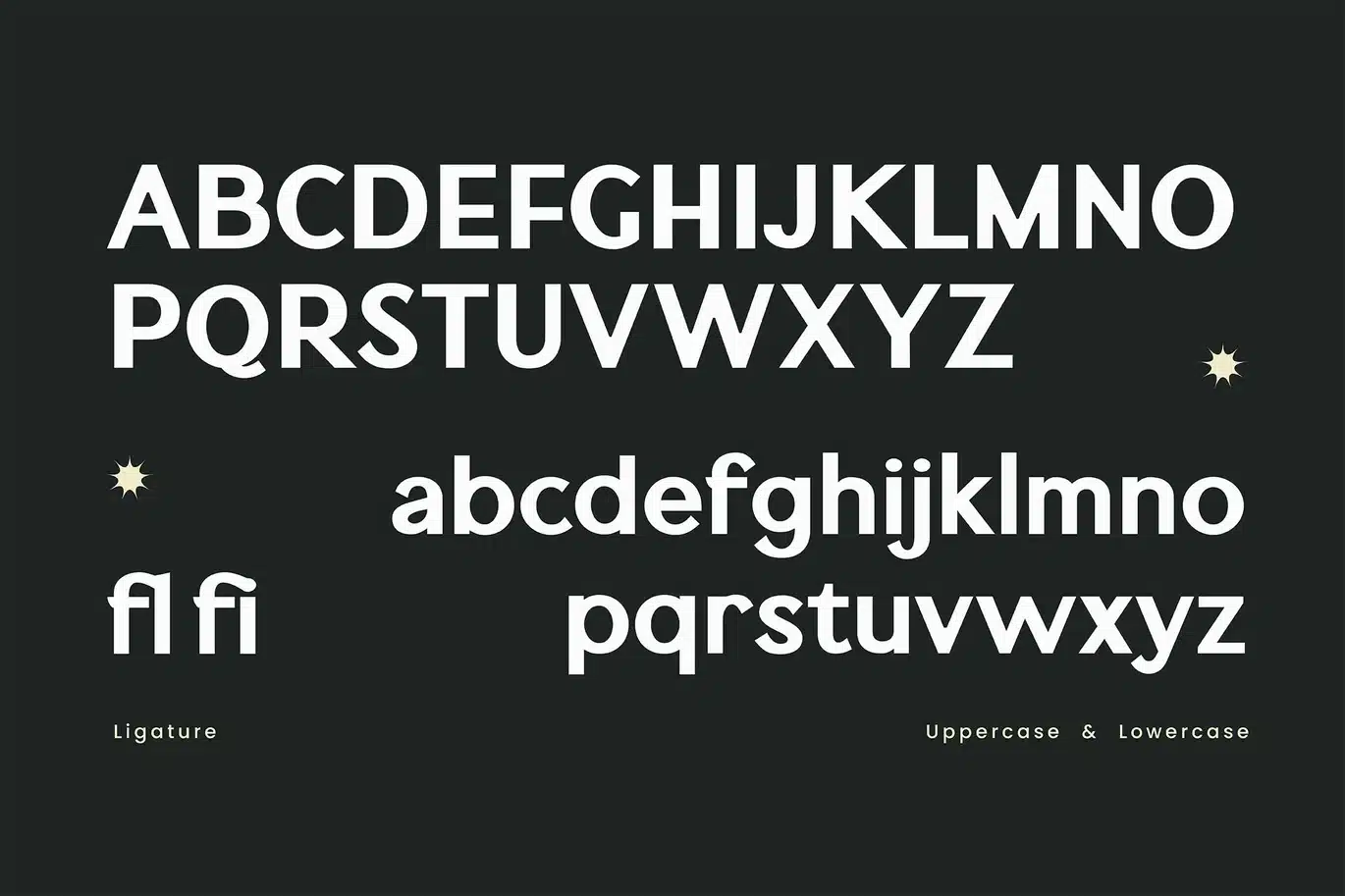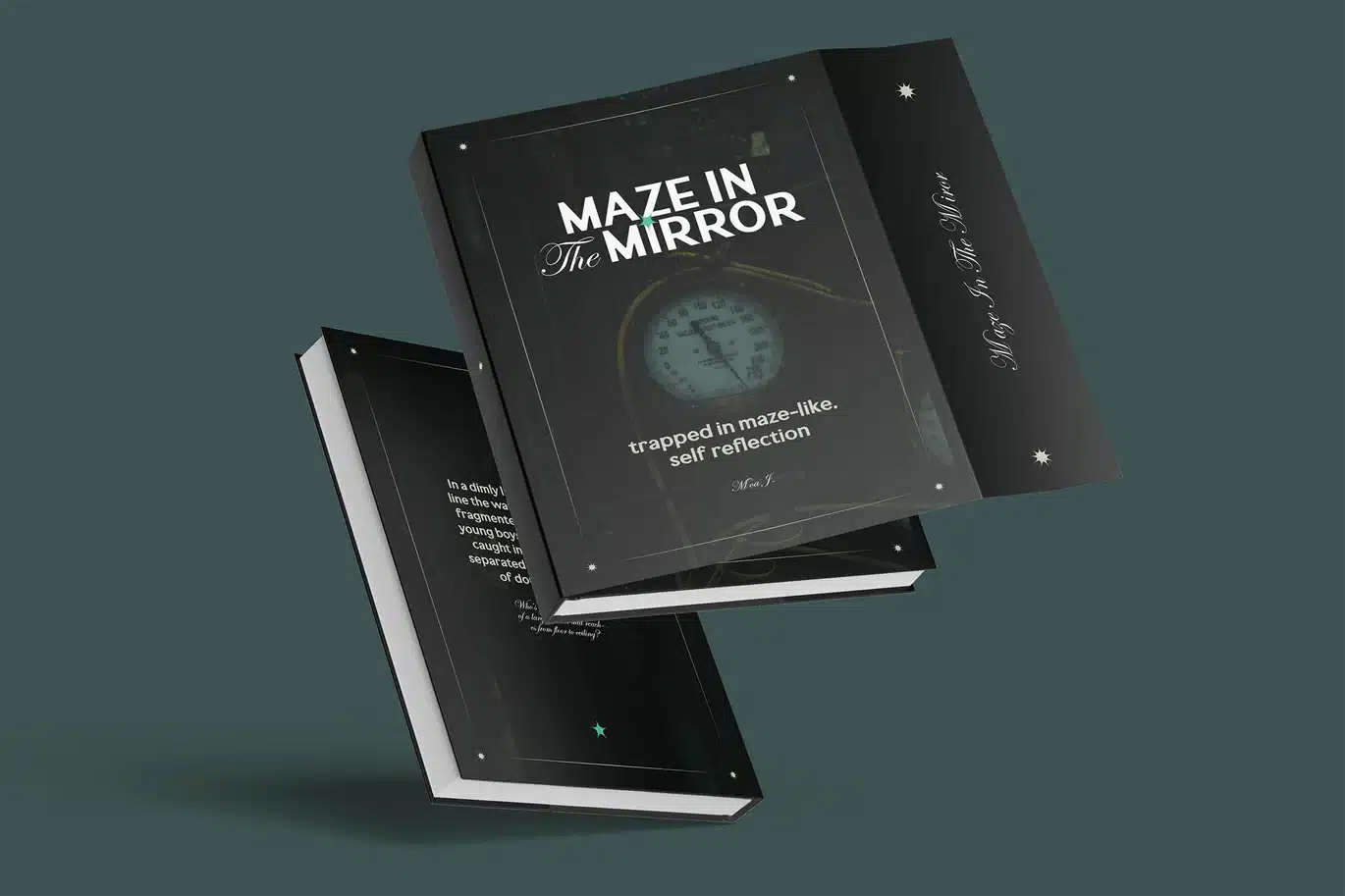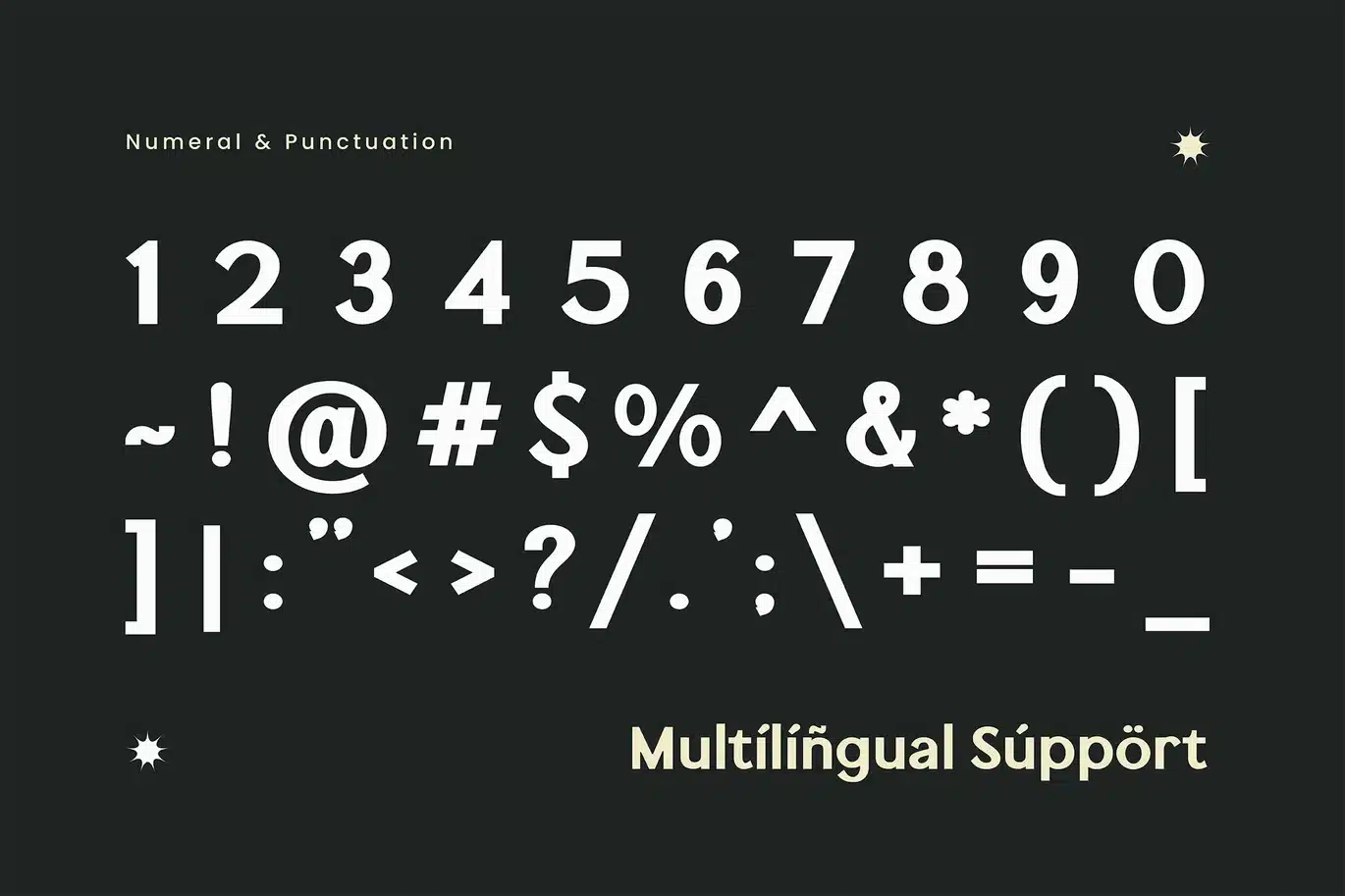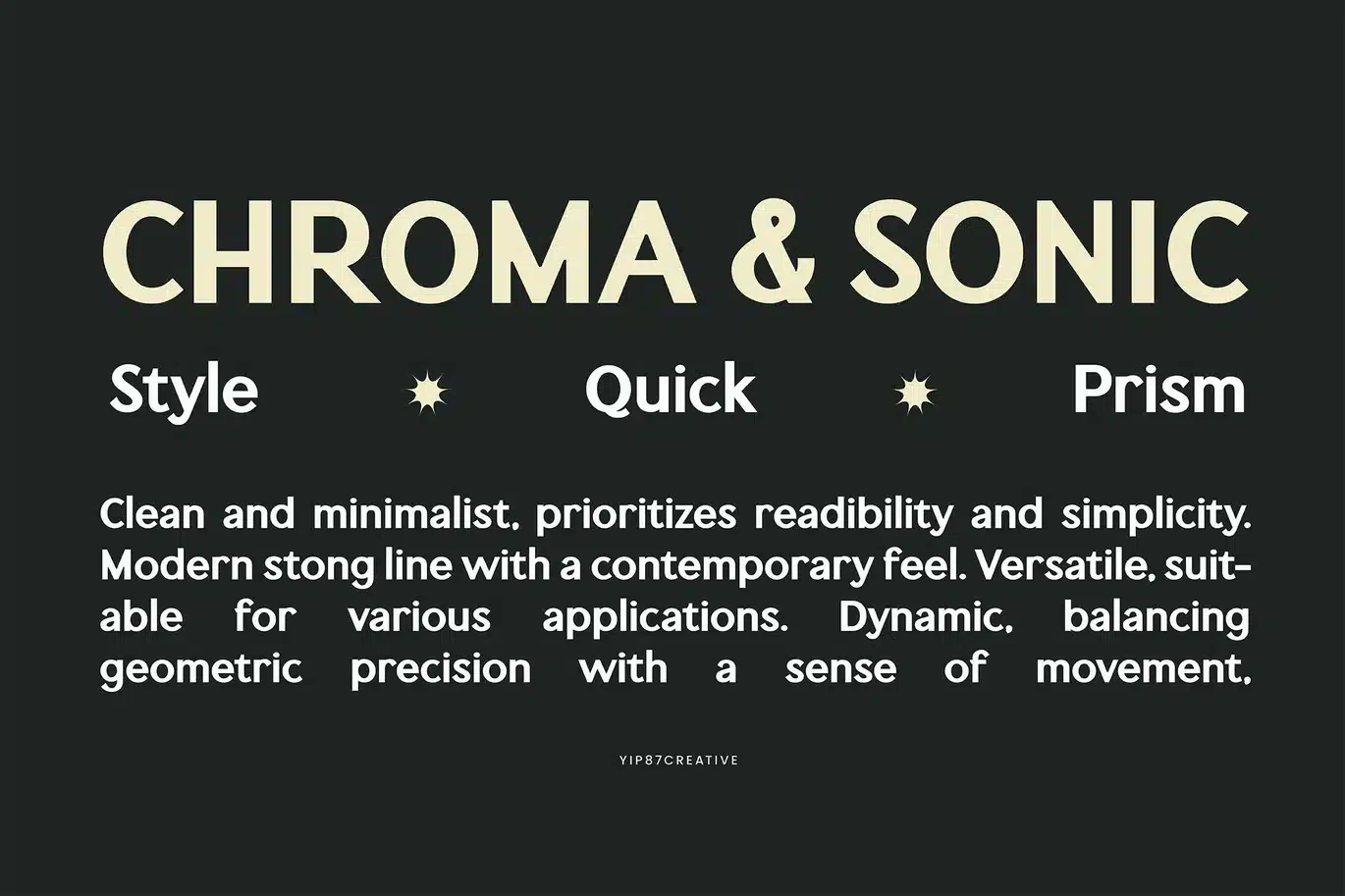
Silverush – Classic Elegant Sans Serif – Logo Font
Silverush is a stylish and classic bold sans-serif font. Its sleek design offers a touch of luxury and elegance, making it perfect for projects that require a graceful and high-end aesthetic, such as branding, art deco design, music branding, travel, luxury packaging, logo design, fashion magazines, editorial design, and any project that requires a touch of luxury and classic. Elevate your branding design projects with Silverush Font today.